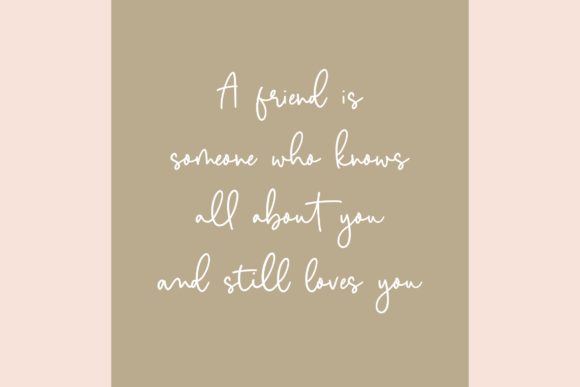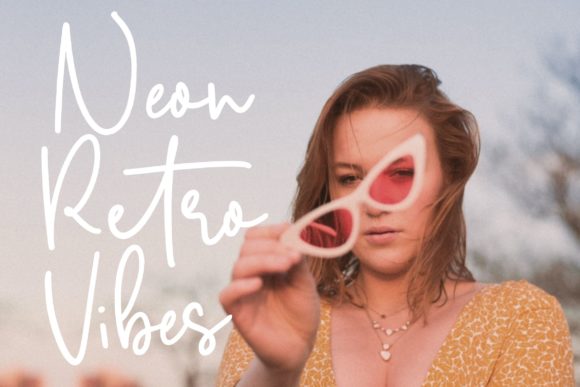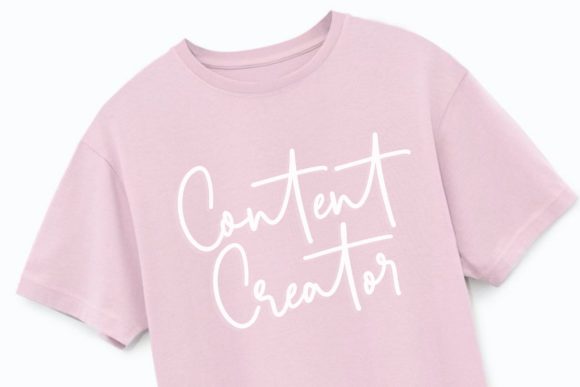
Introduction to Melwisa Jameson Font
Melwisa Jameson is a flowing handwritten font, described by an elegant touch, perfect for your favorite projects.
Fall in love with its incredibly distinct and timeless style and use it to create spectacular designs This font is PUA encoded which means you can access all of the glyphs and swashes with ease.
Melwisa Jameson Font offers exceptional quality and versatility, making it a valuable addition to your design toolkit. Whether you’re creating for personal projects or commercial use, Melwisa Jameson Font delivers professional results.